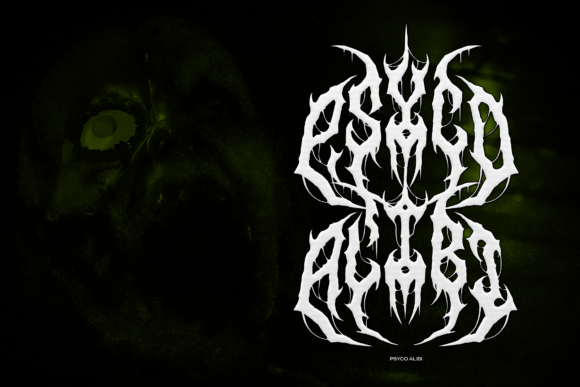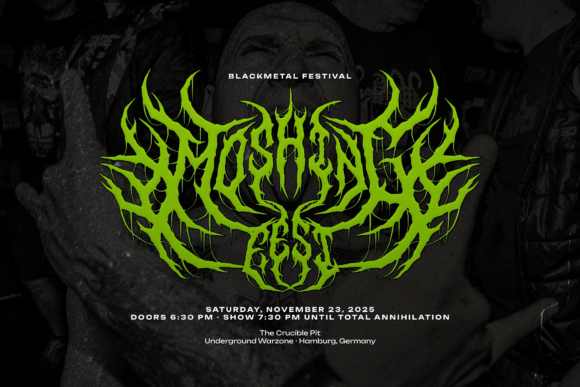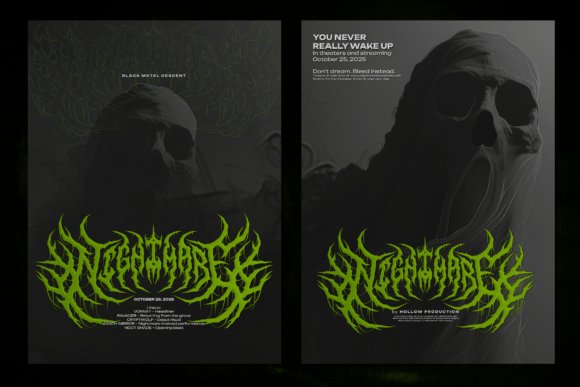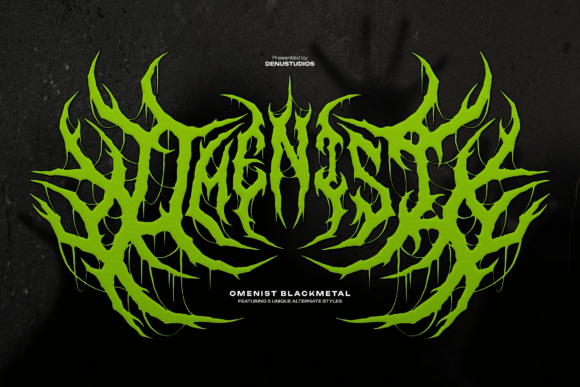
Introduction to Omenist Font
Omenist is an extreme blackmetal display font crafted for fans of the darkest aesthetics.
Featuring jagged, chaotic spikes and an organically corrupted form, this font captures the raw intensity of metal band logos and underground horror visuals With 5 unique alternate styles, Omenist lets you fully customize your compositionβ€”perfect for album covers, merchandise, poster designs, and anything that demands brutal, cryptic energy.